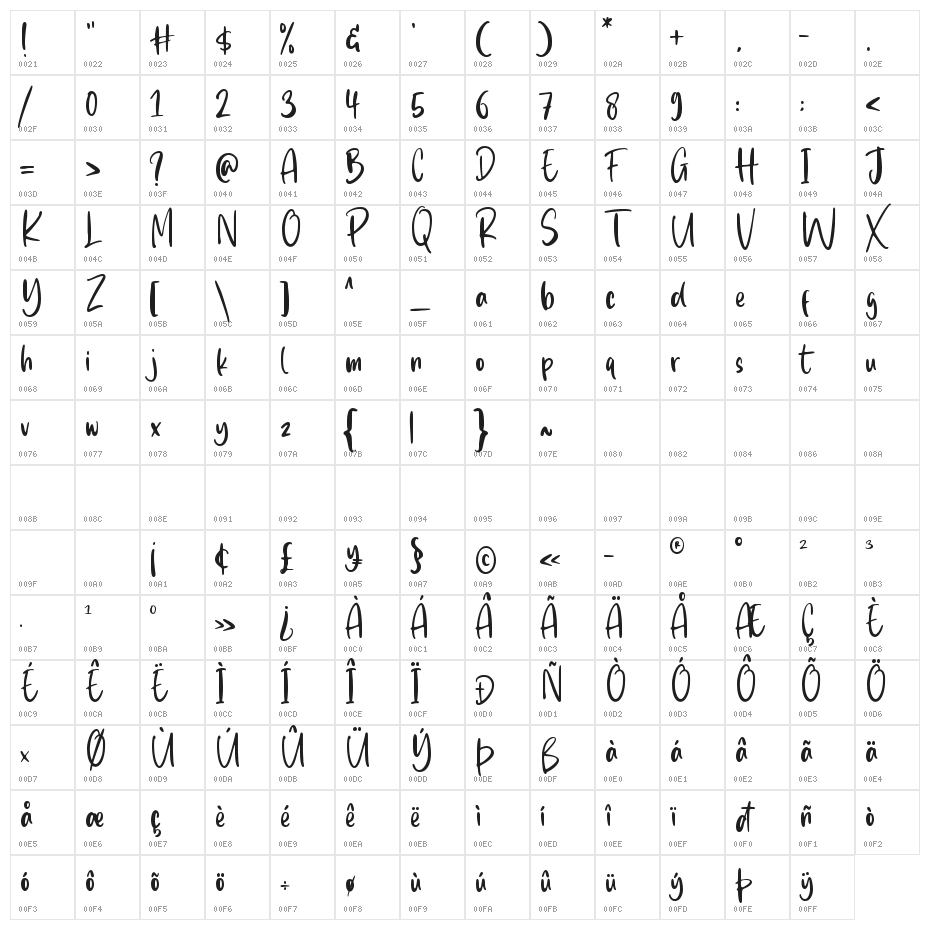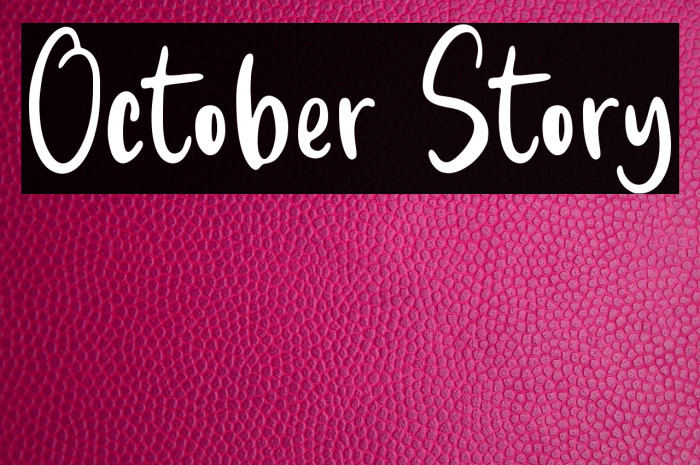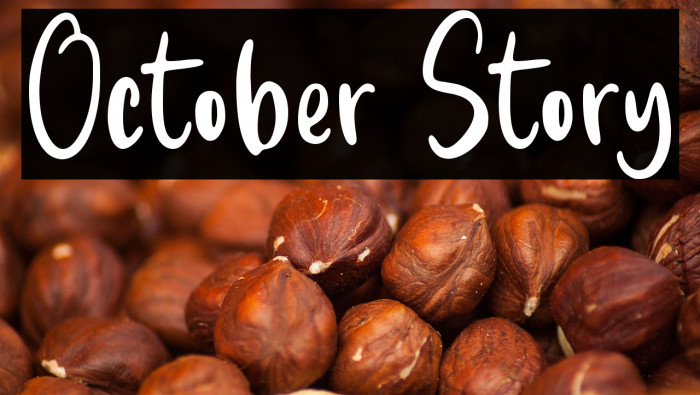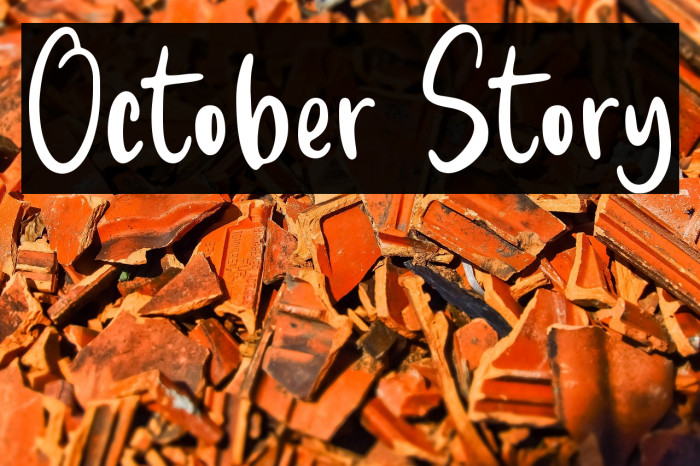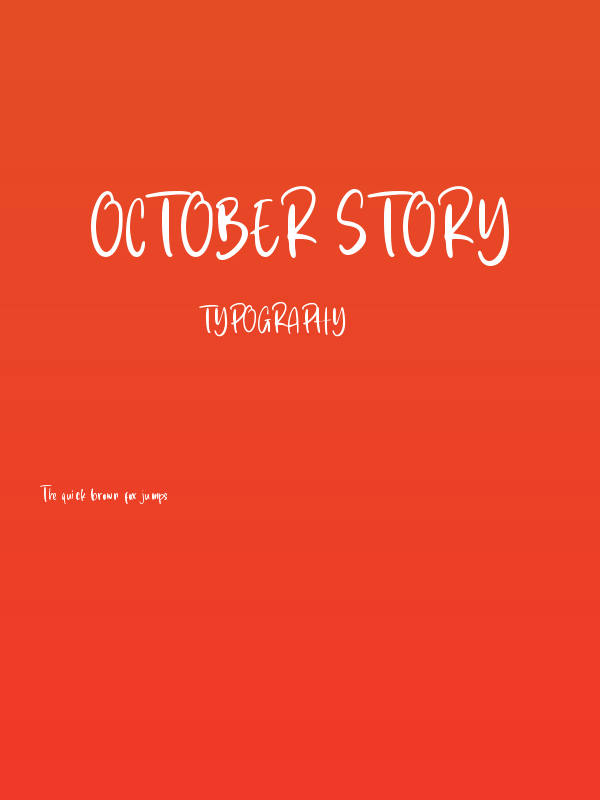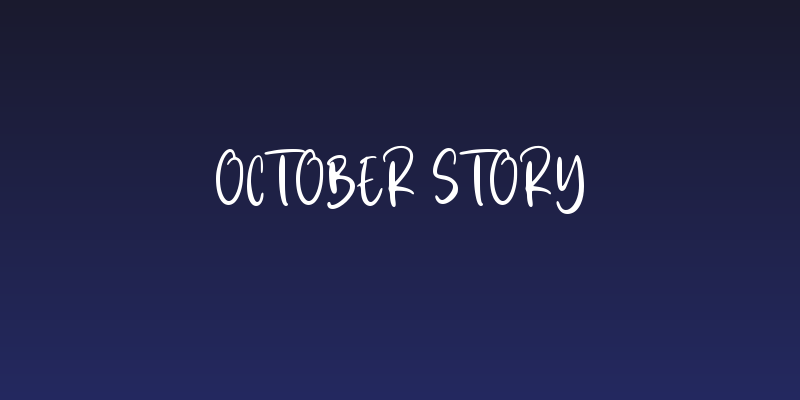
October Story Font
October Story Description
This font features a playful and casual handwritten style, characterized by its fluid and organic letterforms. The uppercase letters are bold and slightly irregular, giving a sense of spontaneity and charm. The lowercase letters maintain a consistent flow, with rounded edges and a friendly appearance. The numerals are distinct and easy to read, complementing the overall informal aesthetic. Special characters are creatively integrated, adding to the font's versatility. This style is perfect for projects that require a personal touch, such as greeting cards, invitations, or branding materials that aim to convey warmth and approachability.
| Overall Style | Casual, Playful |
| Use Case | Headlines, Logos, Invitations |
| Proposed Projects | Ideal for greeting cards, invitations, personal branding, and any project needing a warm, approachable feel. |